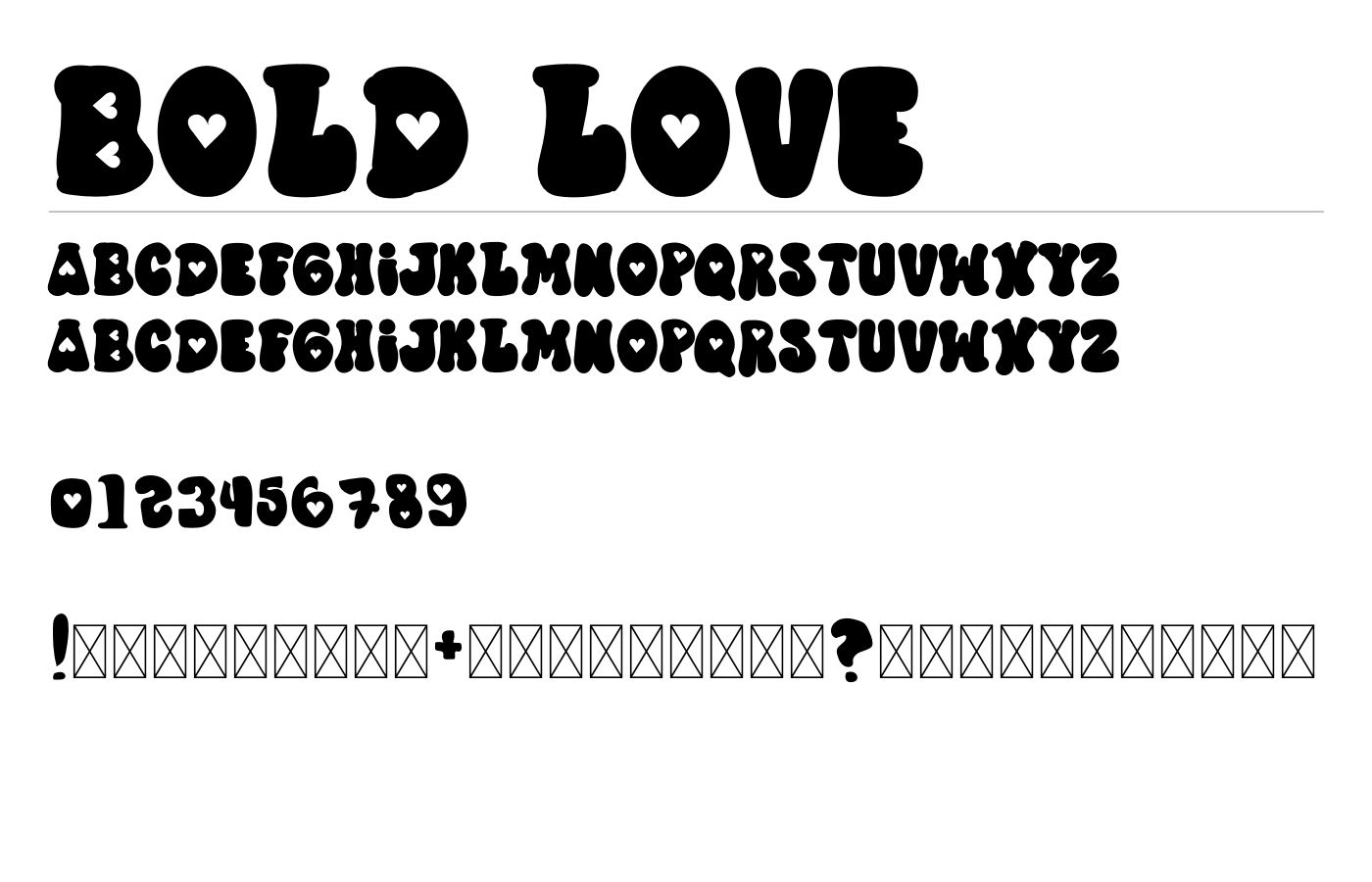
Bold Love is a playful and bold display font featuring thick, rounded letterforms with whimsical heart-shaped cutouts that add a charming, affectionate feel. Its heavy weight and quirky style make it perfect for fun, eye-catching headlines, logos, and designs related to love, celebration, and creative projects. This font works best where a lively and cheerful personality is needed to stand out.
Bold Love Font